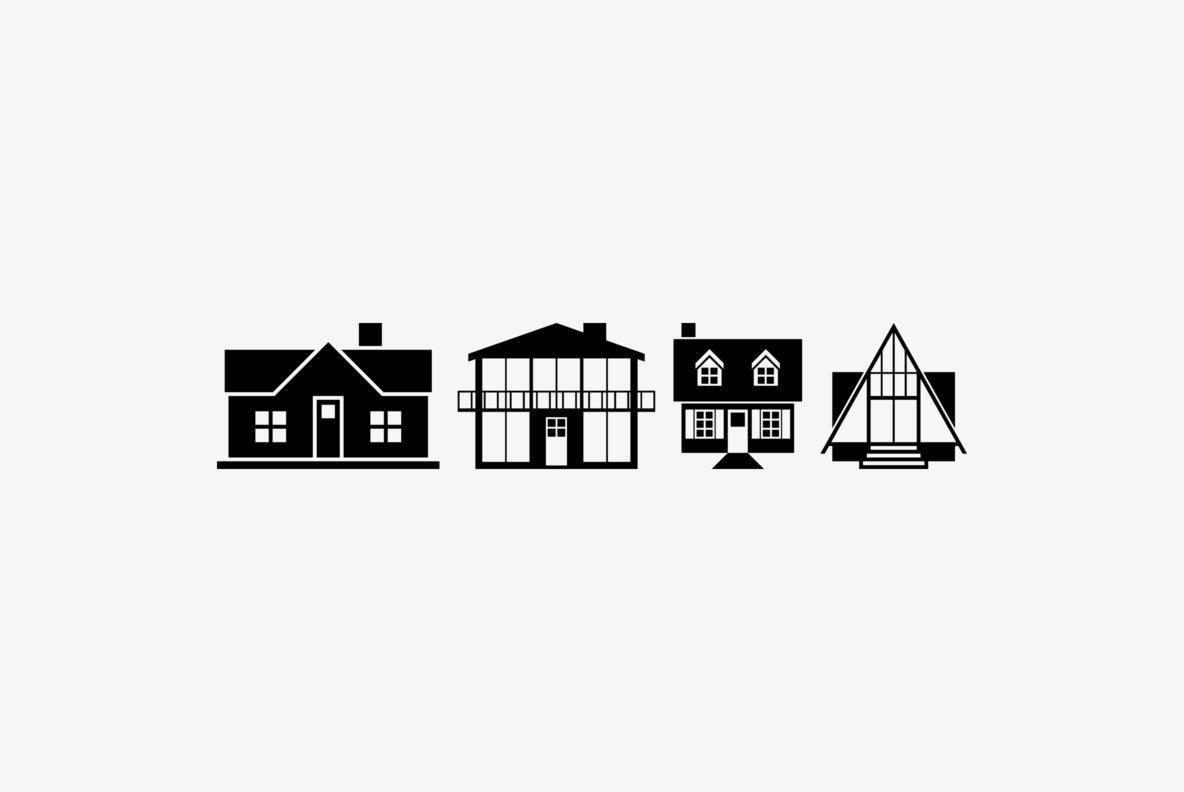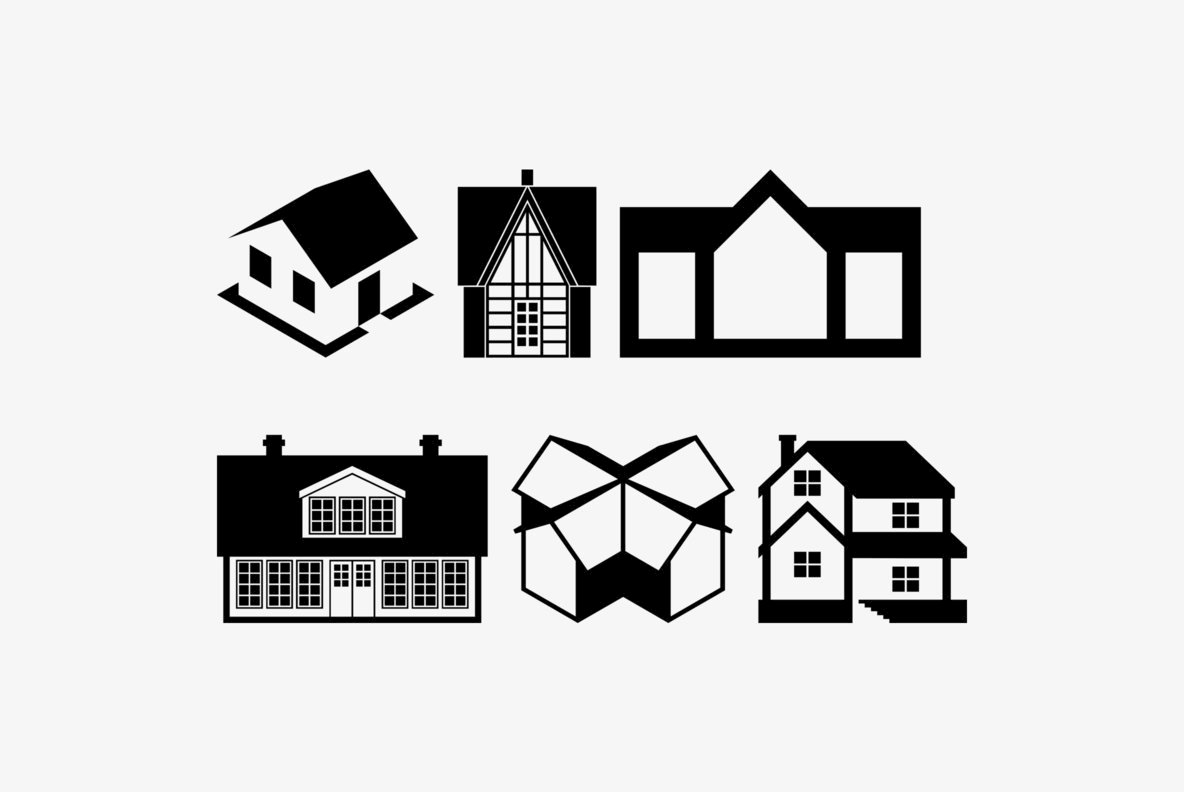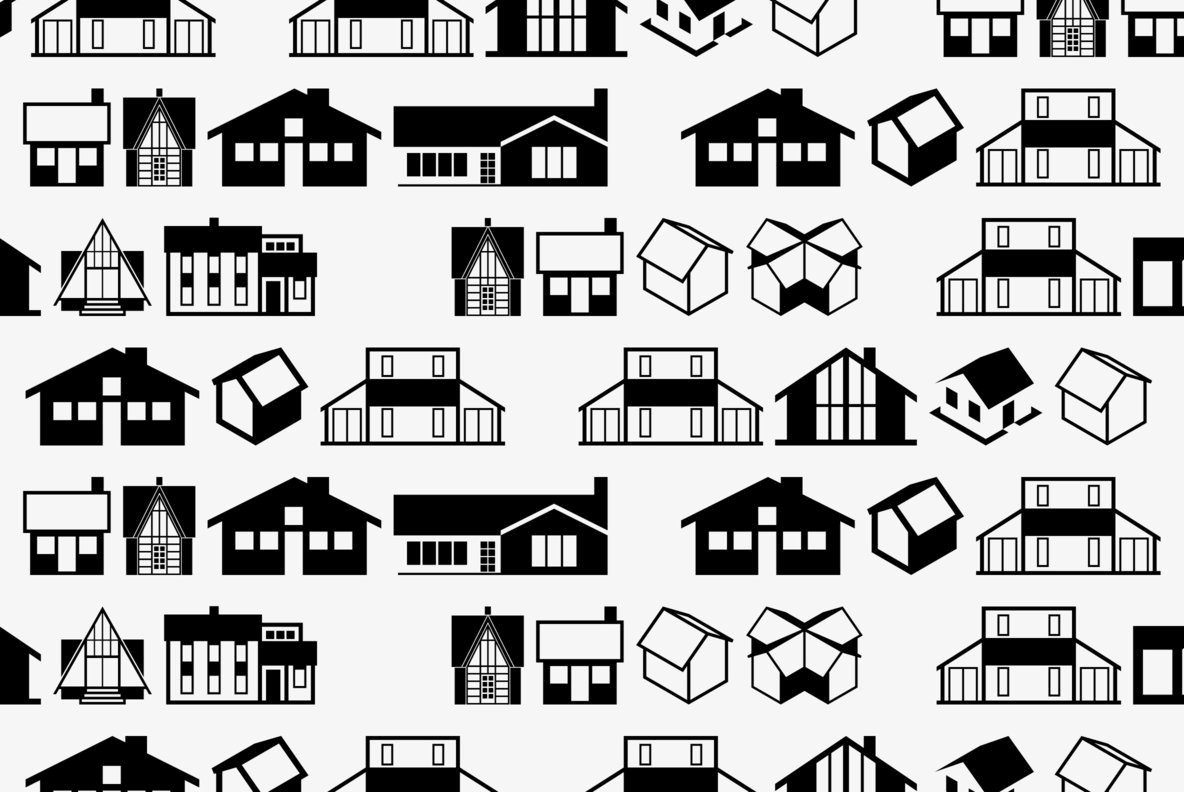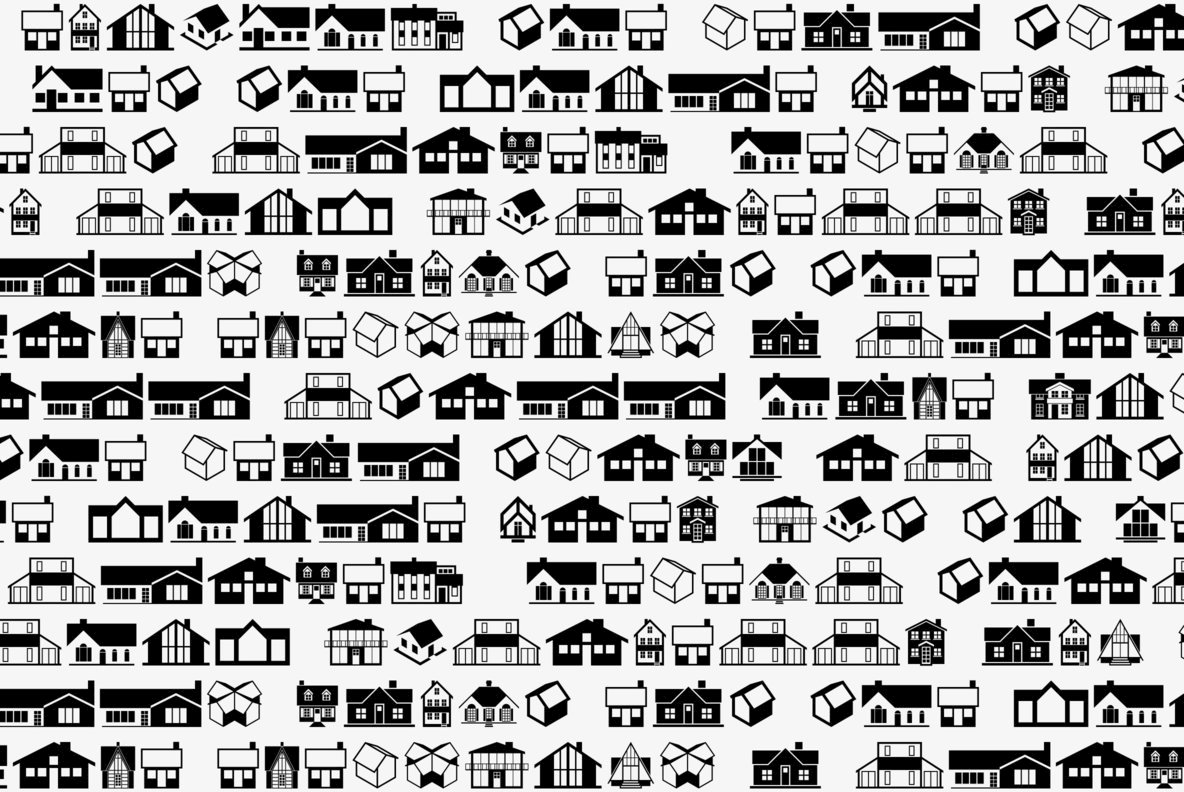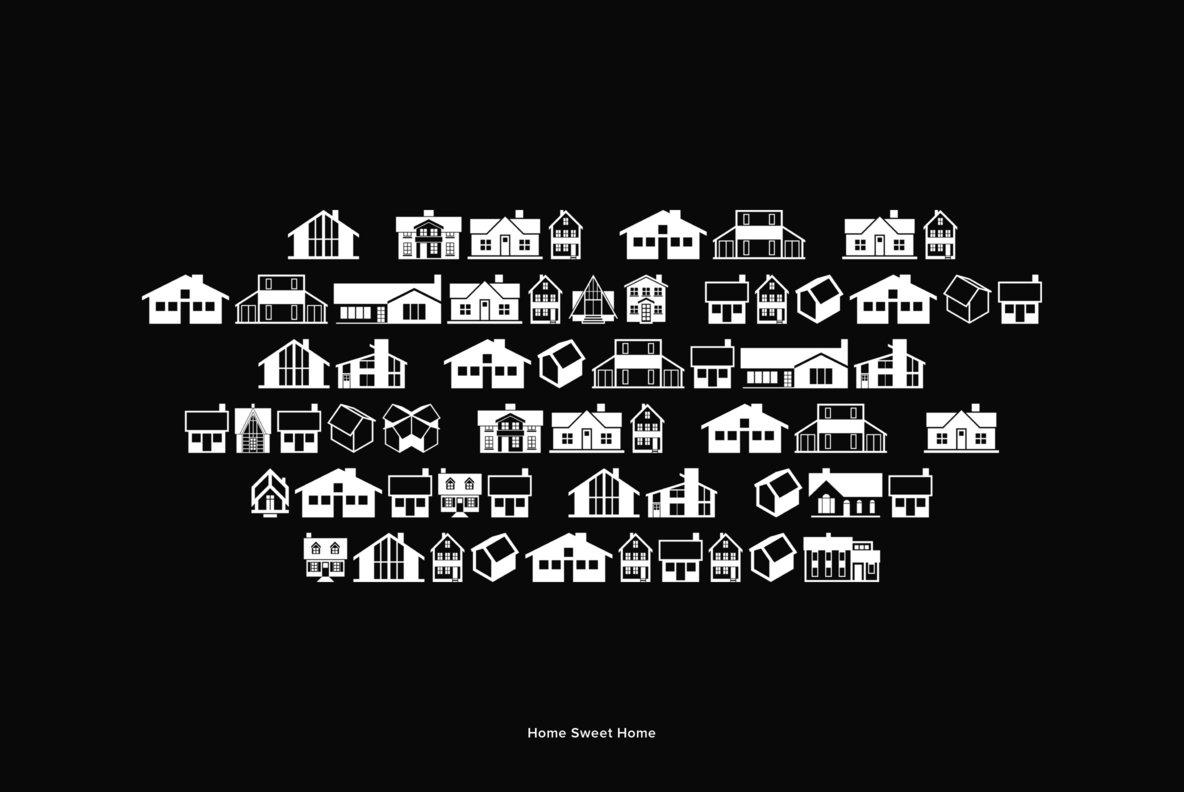
Home Sweet Home Font
Home Sweet Home
The intricacies of architectural design come alive in Home Sweet Home. This curated collection features 47 innovative house designs, each with its own distinctive charm. Whether you're embarking on a new project or seeking inspiration, these designs offer a wealth of ideas and styles that cater to a variety of tastes.Home Sweet Home: A Collection of 47 Unique House Designs